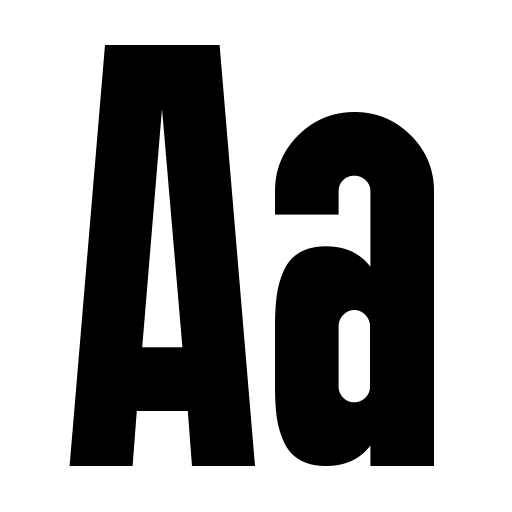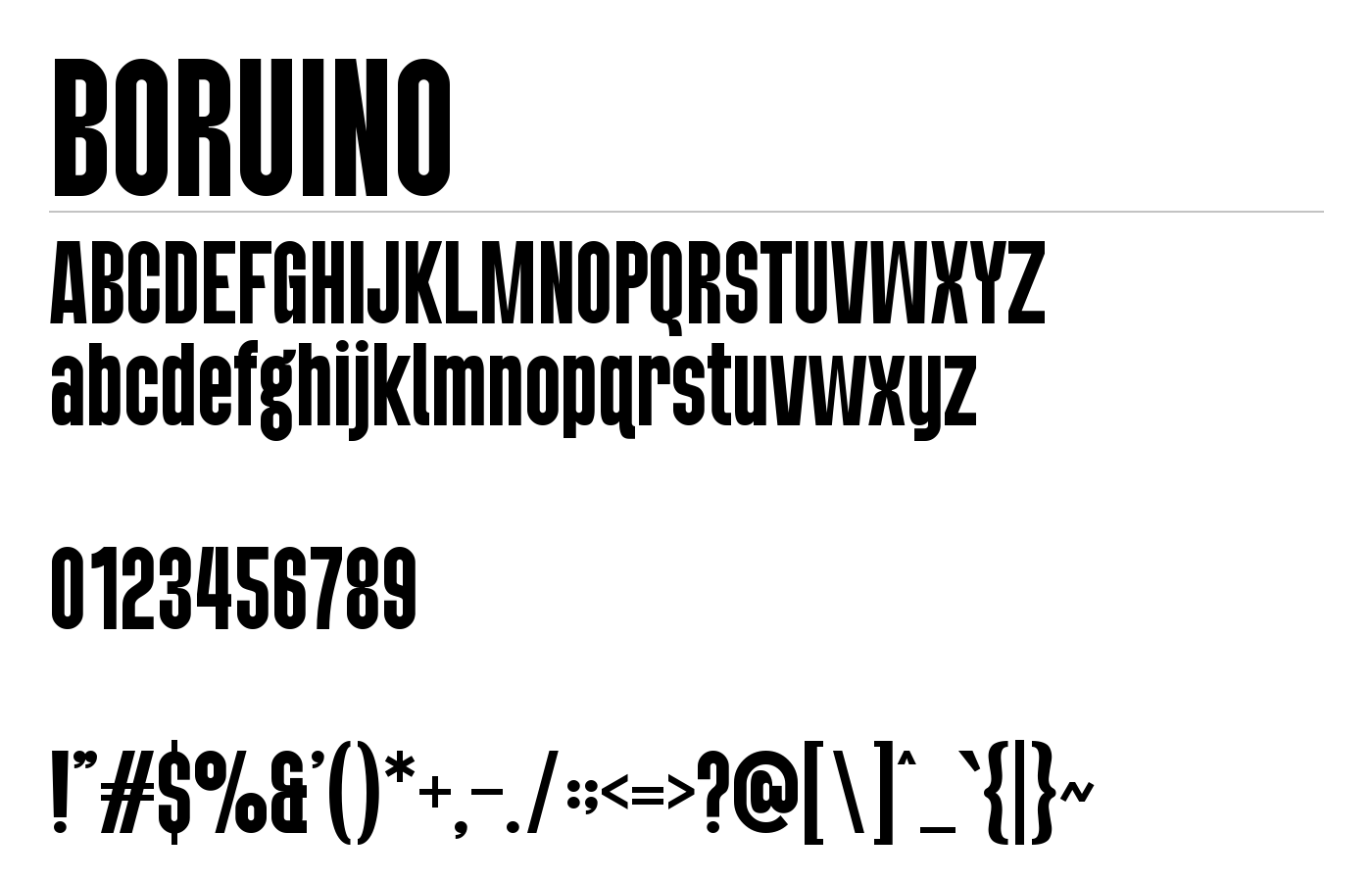
BORUINO is a bold, condensed sans serif typeface with a strong vertical emphasis and a solid, modern feel. Its tall letterforms and uniform stroke weight make it perfect for impactful headlines, branding, and display use where attention-grabbing clarity is key. This font suits edgy, urban, or contemporary designs that need a confident and stylish presence.
BORUINO Font
About BORUINO Font